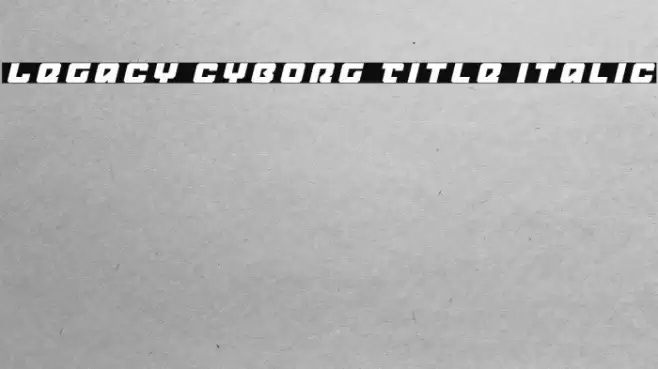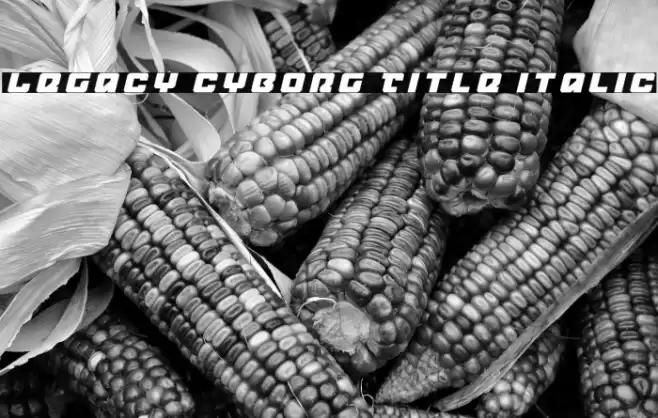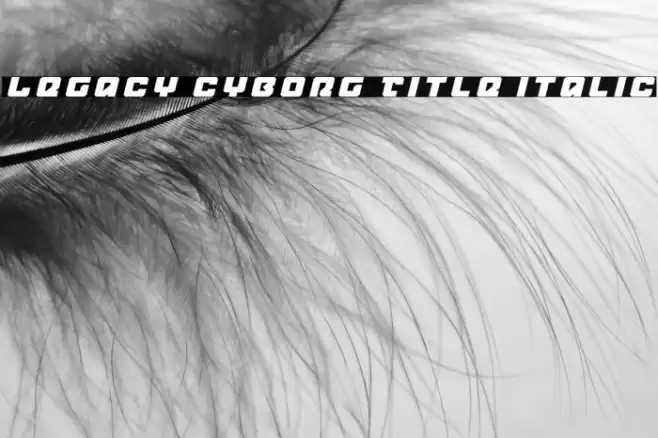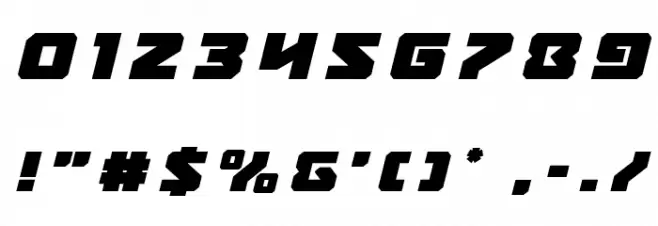
Legacy Cyborg Title Italic Font
Legacy Cyborg Title Italic Description
This font features a futuristic and bold design with sharp, angular edges that give it a distinctly modern and technological feel. The italicized style adds a dynamic and forward-leaning appearance, enhancing its sense of motion and energy. Each character is crafted with a consistent geometric structure, creating a cohesive and uniform look across the alphabet. The uppercase and lowercase letters maintain a strong presence, while the numerals and special characters are designed to complement the overall aesthetic. This font is ideal for projects that require a cutting-edge and innovative look, such as technology branding, sci-fi themed designs, or video game titles.
A bold, futuristic italic font with sharp, angular edges and a dynamic style from Uncategorized fonts.
- Proposed Projects: Ideal for technology branding, sci-fi themed designs, video game titles, and futuristic posters.